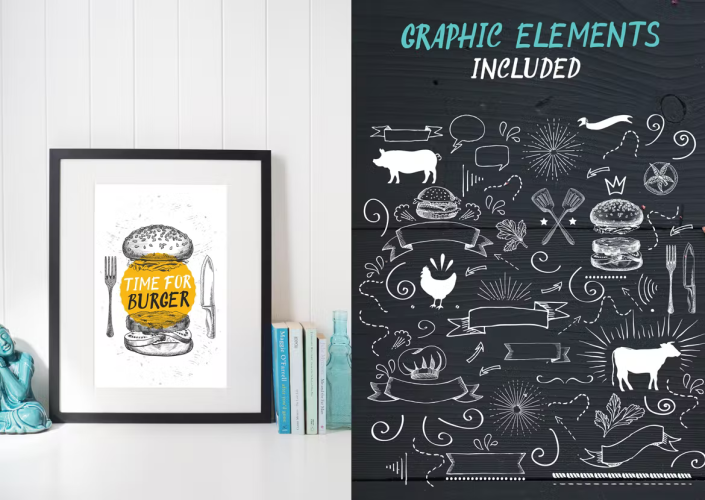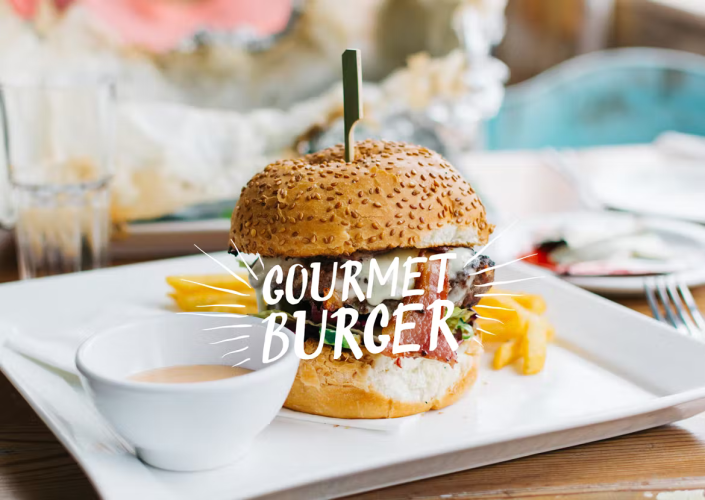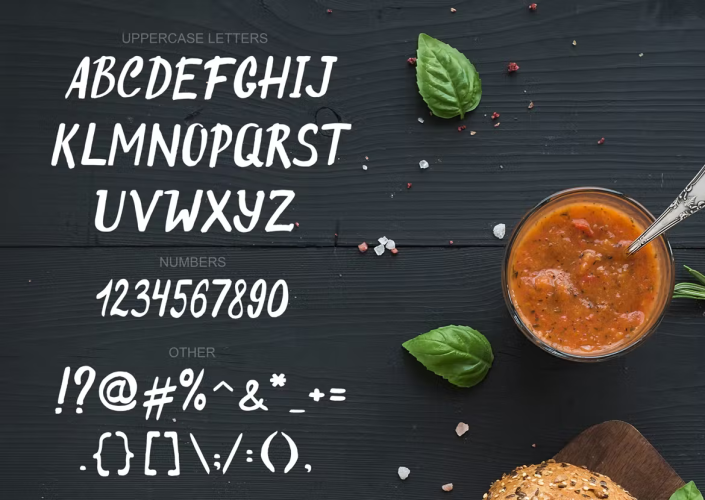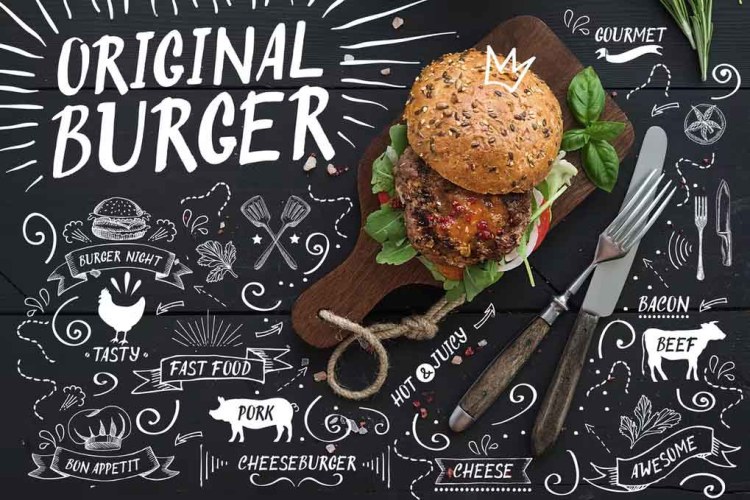
Original Burger Font
+Original Burger – a handmade font consisting of uppercase letters, punctuation and numbers. Basic Latin alphabet A-Z. Also this font comes with graphic doodle elements.
Where Original Burger Font works best
A short phrase in Original Burger Font carries warmth that a typeset sans cannot fake; keep the rest of the card plain.
Chalkboard-style headings in Original Burger Font make a menu feel hand-made. Keep the dish descriptions in a simple face so prices stay readable.
One line of Original Burger Font over a photo is enough; the script carries the tone and the caption does the work.
What kind of work does Original Burger Font suit?
It sits in the Script And Handwritten group and reads as handwritten, professional, script, script and handwritten. That makes it a candidate wherever those qualities help: headings, packaging, social graphics and brand work. Set it at the size you plan to use before deciding.